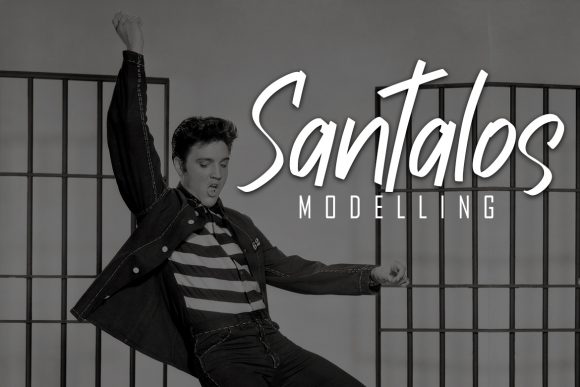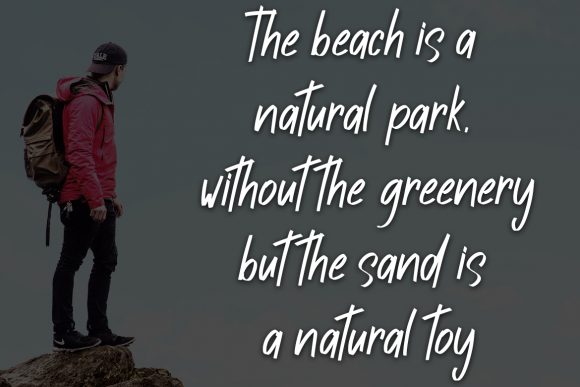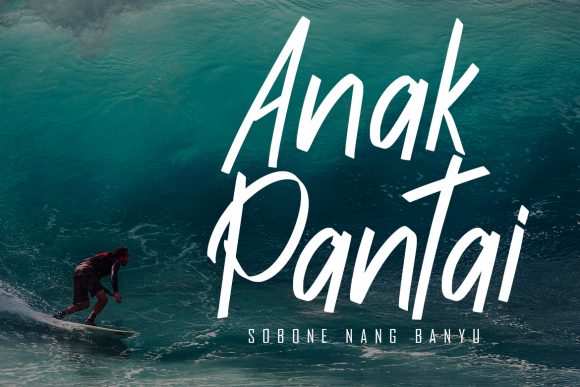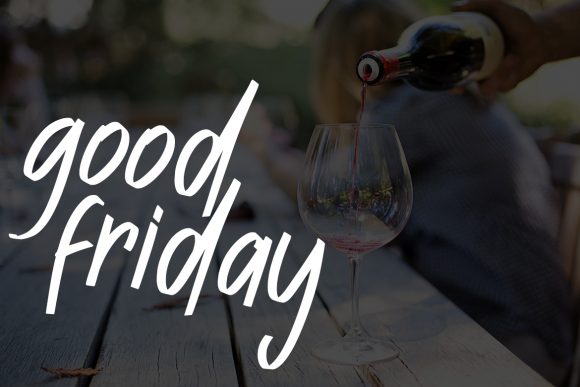
About Ayesha Font
Ayesha is a brushed handwritten font. It has an urban, cool and modern look that can be used for logos, branding, invitations, stationery, wedding designs, social media posts, and much more!